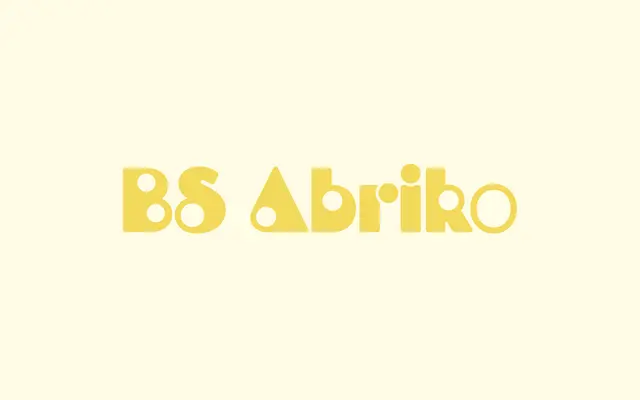
BS Abriko
A single-style geometric display face by Maël Bächtold, drawing on Bauhaus letter forms with deliberate irregularities and playful counter shapes.
Designed by Maël Bächtold at Bolid System and released in 2025, it pairs Bauhaus-era geometric structure with intentional naivety: roundness is pushed, counter forms are tested, and some elements are omitted from glyphs where convention might demand them. Despite those irregularities, the contrasts are carefully weighted to hold together as a coherent whole. Available as a single style, it suits editorial headlines, packaging and branding where an unconventional yet warm character is wanted.
A single-style display typeface built on Bauhaus geometric principles with deliberate irregularities, expressive counter forms and unconventional proportions; firmly in the display category with no text weight variants.